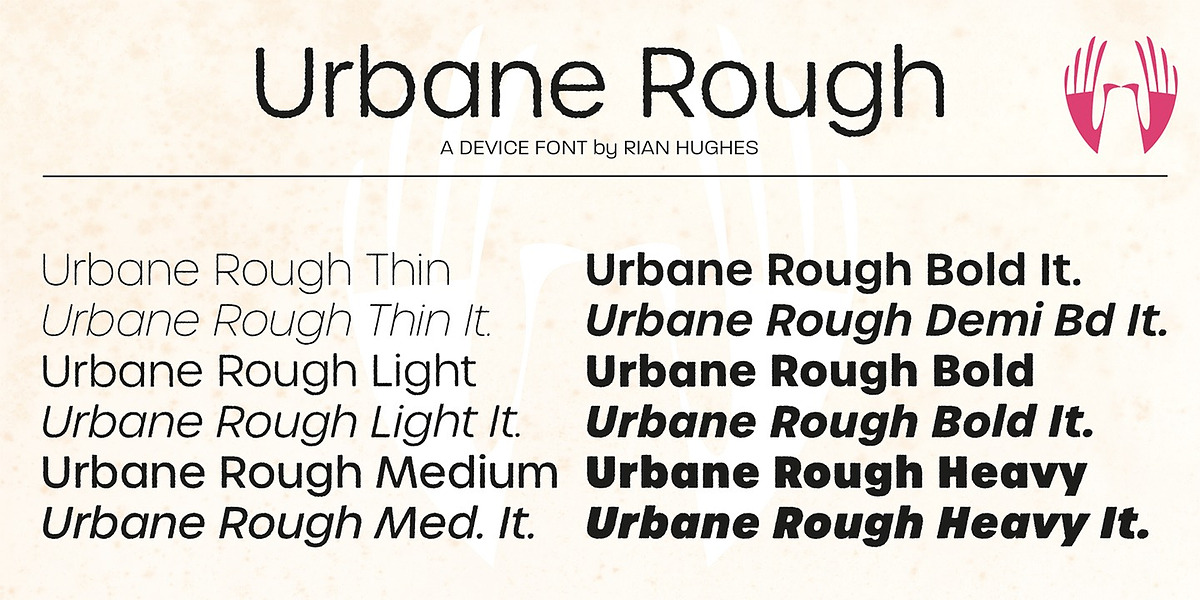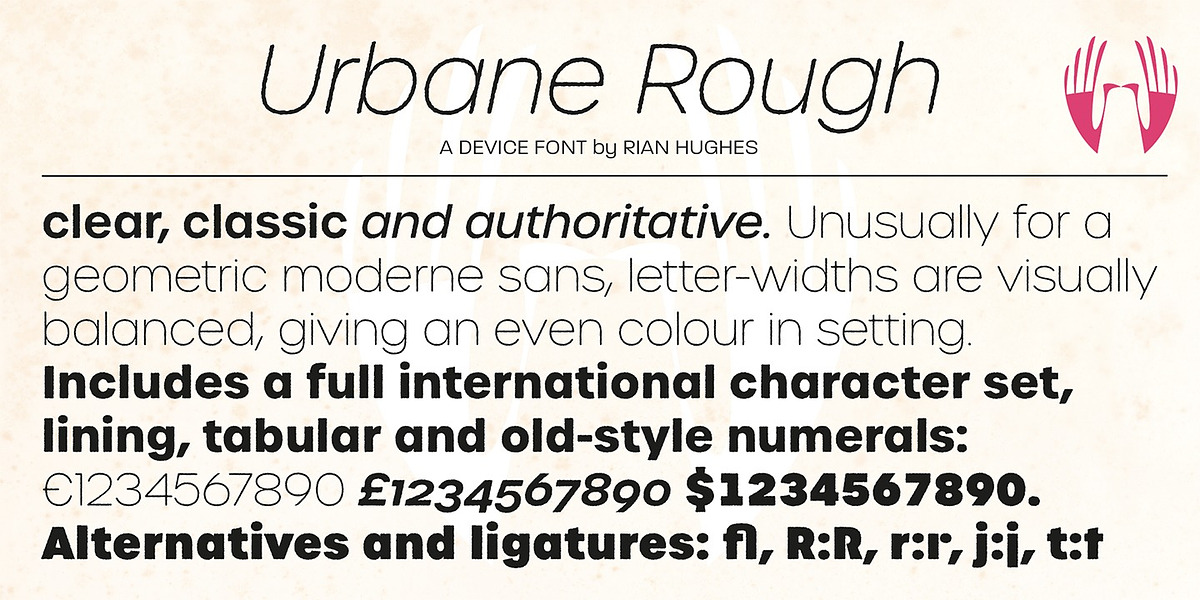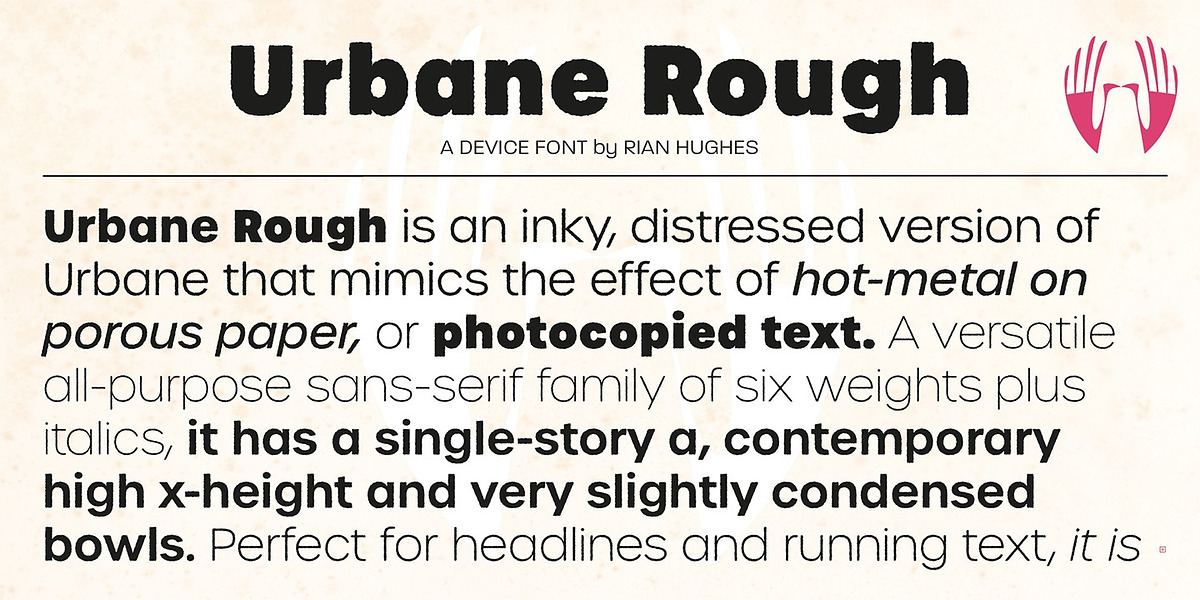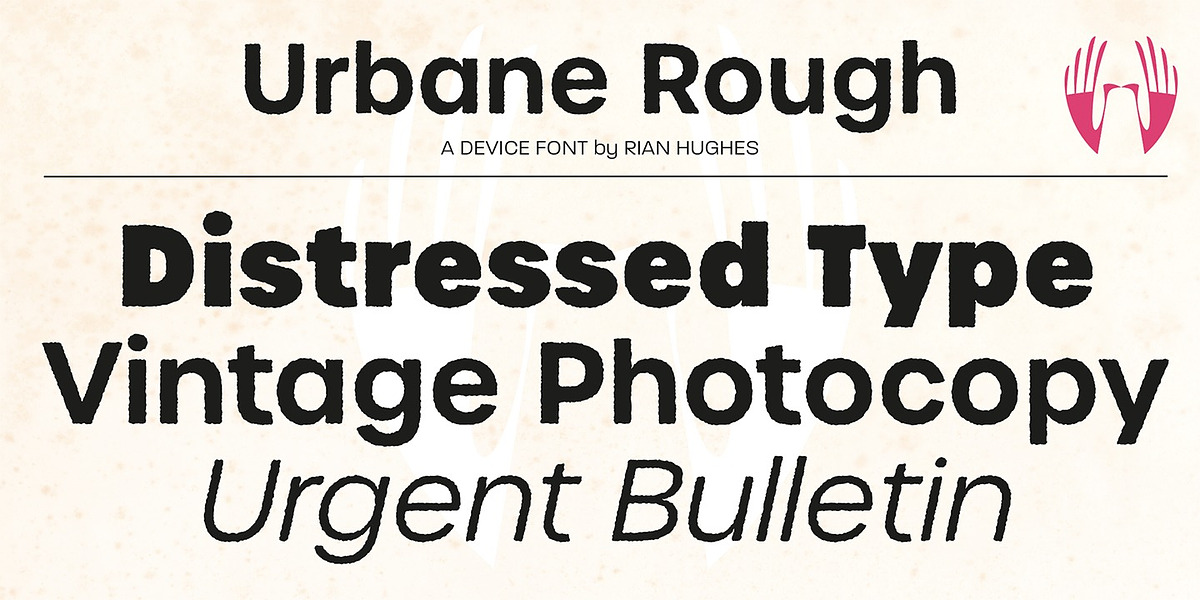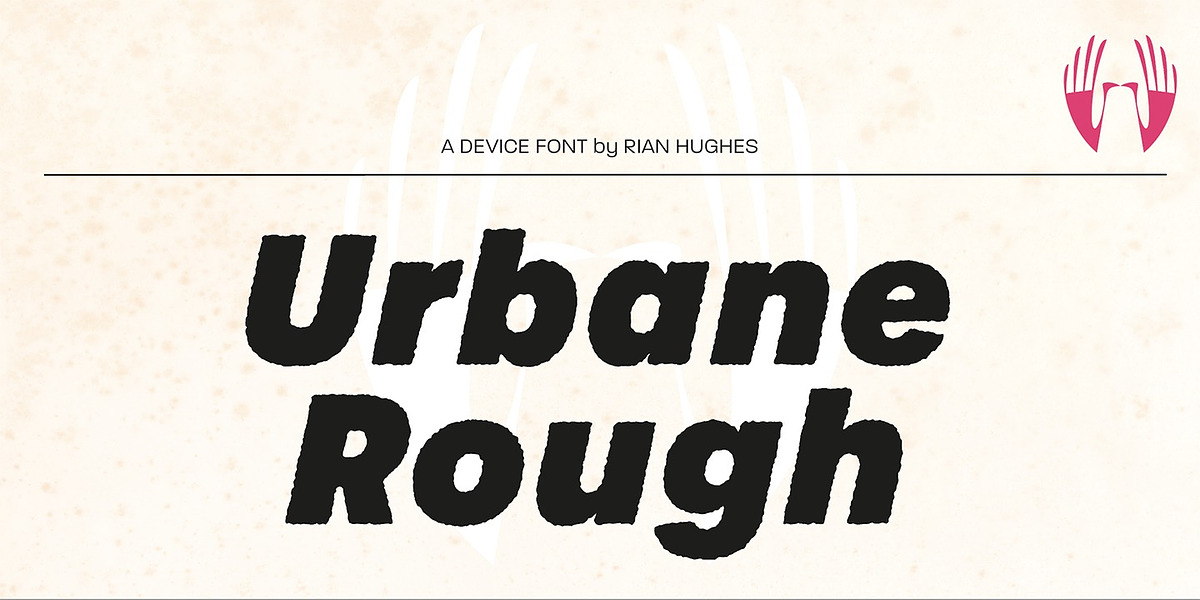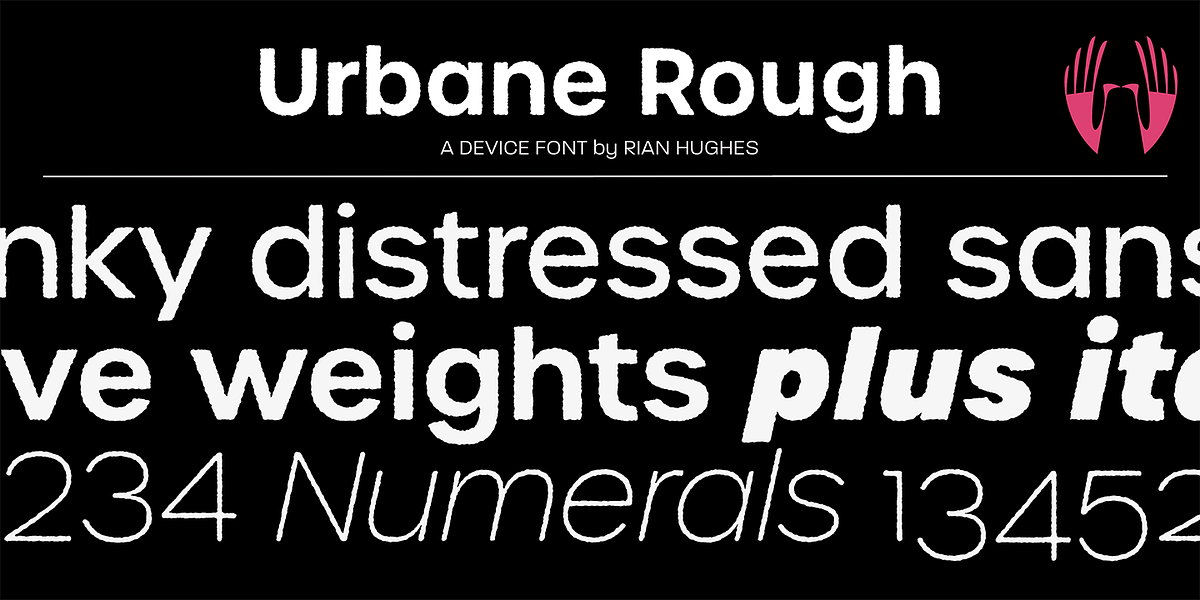
Urbane Rough
Urbane Rough is a distressed version of the Urbane sans-serif typeface. This gives it an urgent and immediate feel, reminiscent of photocopied flyers or inky printing. It's a versatile all-purpose font family available in six weights plus italics. Urbane Rough explores the same design space as early geometric modernist sans-serifs like Futura, Erbar, Spartan, and Elegant Sans. It features a single-story 'a', a contemporary high x-height, and very slightly condensed bowls. Perfect for both headlines and running text, it is clear, classic, and authoritative. Unusually for a geometric moderne sans, the letter widths are optically balanced, giving an even color in setting.